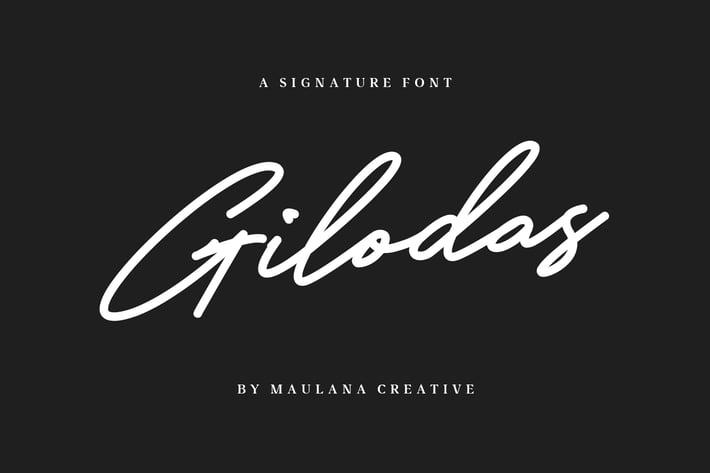
Gilodas Signature Font
Give your designs an authentic handcrafted feel. "Gilodas" is perfectly suited to signature, stationery, logo, typography quotes, magazine or book cover, website header, clothing, branding, packaging design and more. Included Ligatures.